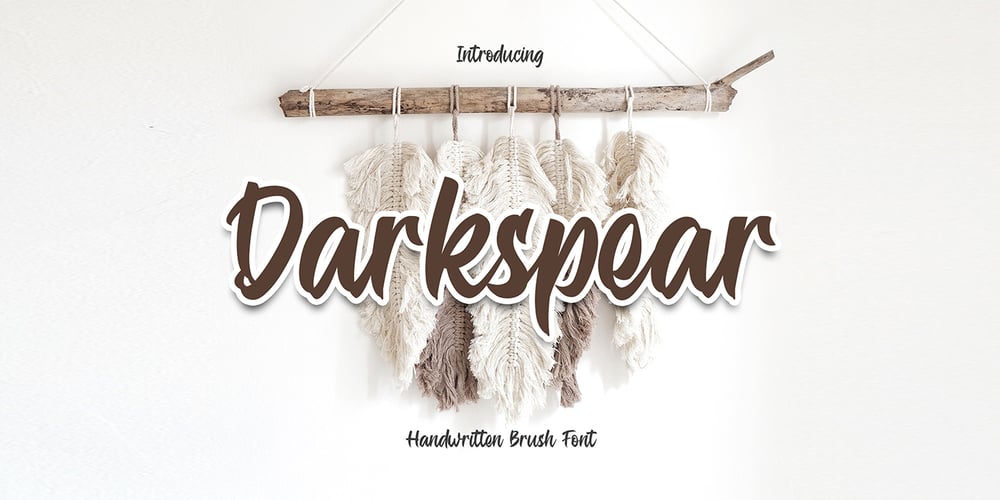
Darkspear Font Family was designed by Yahdi Kumala and published by Rometheme. Darkspear contains 1 styles and family package options. Darkspear is handwritten script font. It has vintage, elegant, old school, classy, and cool. It’s a great font for fashion, apparel projects, signature, album cover, logo, branding, magazine, social media, & advertisements, but also works great for other projects.